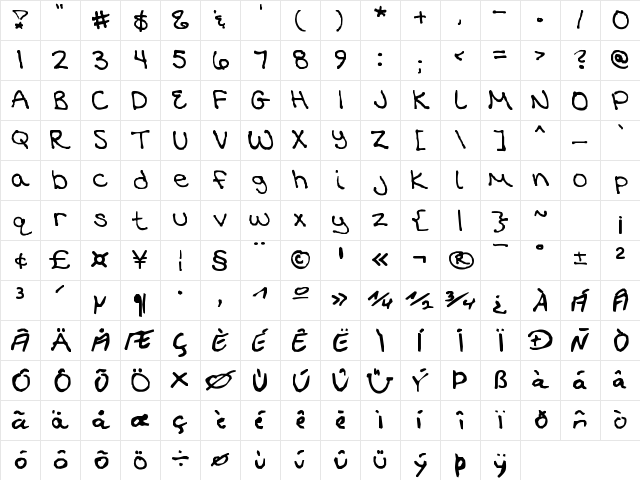
QEAshleighLowery Regula Free Font
QEAshleighLowery Regula
Style: Regula
Complete QEAshleighLowery Regula glyph index. Displaying only characters natively supported by QEAshleighLowery Regula font.
Design Context for QEAshleighLowery
QEAshleighLowery is a composed and adaptable typeface that performs quietly and consistently across a wide range of design contexts.